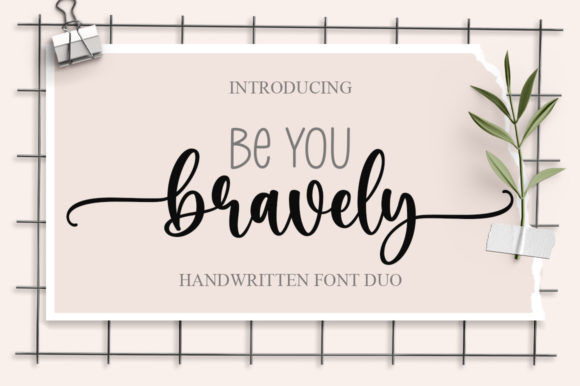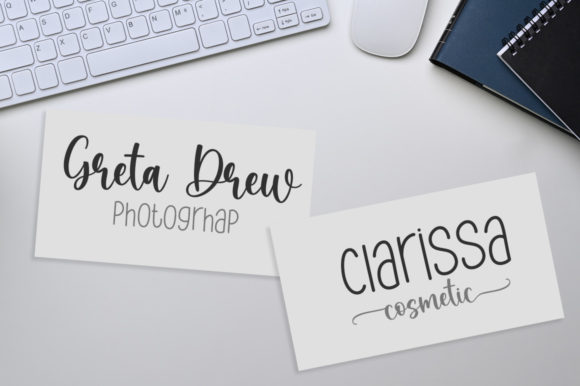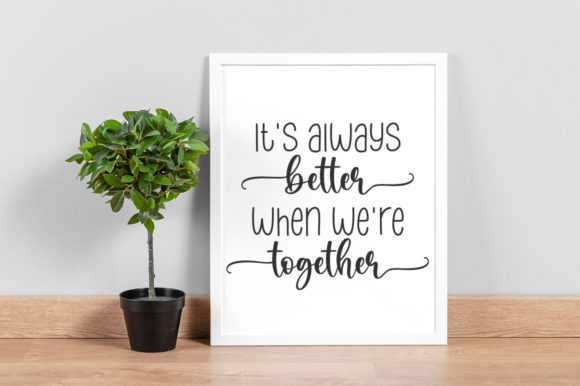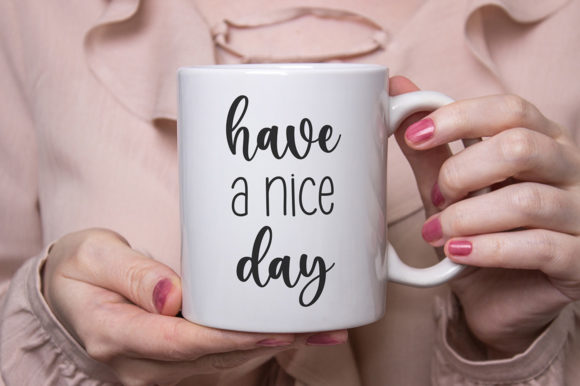
Be You Bravely Font
About the Be You Bravely Font
Unleash your creativity with Be You Bravely Font, a versatile font perfect for a wide range of applications. Be You Bravely consists of two fonts designed to complement each other perfectly. Together or apart, these fonts are ideal for adding a chic and cheery touch to your crafts. Be You Bravely is PUA encoded which means you can access all glyphs and swashes with ease!
Be You Bravely’s playful yet sophisticated style makes it perfect for headlines, short-form text in branding materials, and packaging design where its distinctive character can shine. It’s also well-suited for eye-catching posters or social media graphics. However, its decorative elements make it less suitable for body text or lengthy paragraphs, and it would be unsuitable for user interface (UI) elements requiring high legibility.
The font possesses a cheerful, modern personality. To complement this, consider pairing Be You Bravely with a clean sans-serif like Lato for body text, or a classic serif like Garamond for a touch of timeless elegance. For a more playful look, a rounded geometric sans-serif such as Montserrat could create a fun contrast.
Ultimately, Be You Bravely’s unique charm works best in applications that prioritize visual impact and brand personality over extensive readability.
Be You Bravely Font Usage Examples
Be You Bravely Font Example